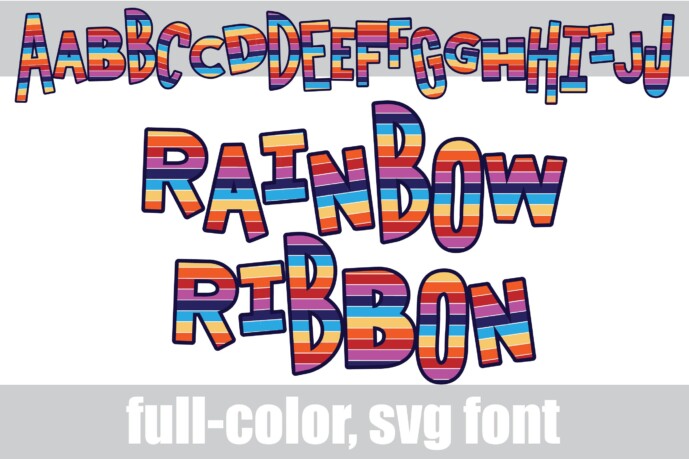
Rainbow Ribbons Font
Designer: Illustration Ink
Rainbow Ribbons Font
This full-color font features a whimsical, bouncy sans serif in a rainbow stripe. There is an alt case of reverse rainbow of each letter that you can access through your system or Silhouette’s glyph map.